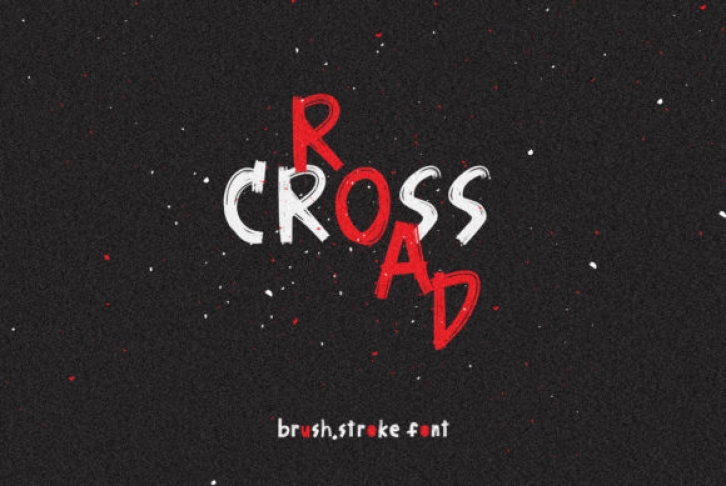
Simplicity and roughness are two of the main characteristics of this gorgeous display font. Add it to your most creative ideas and notice how it makes them come alive!